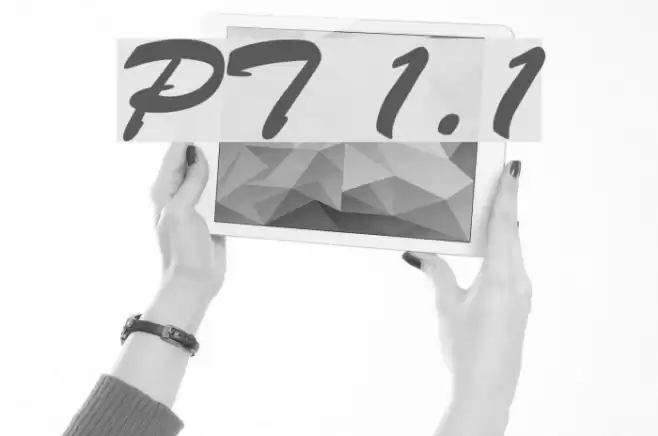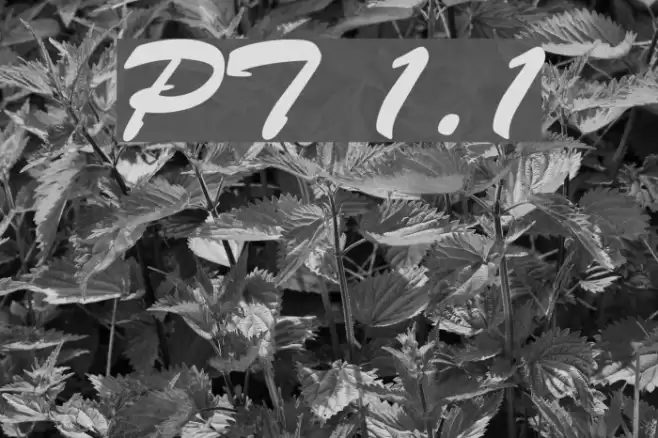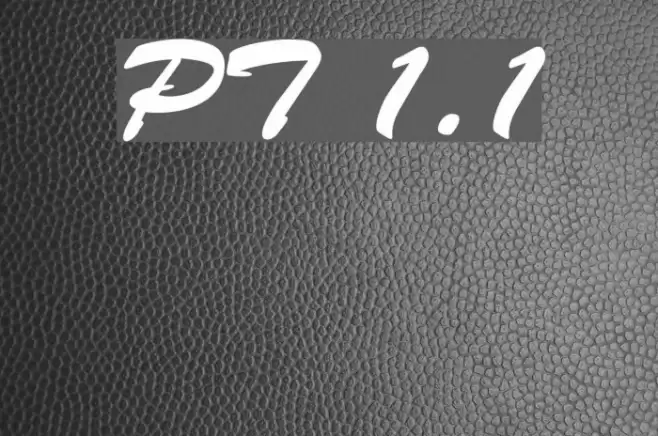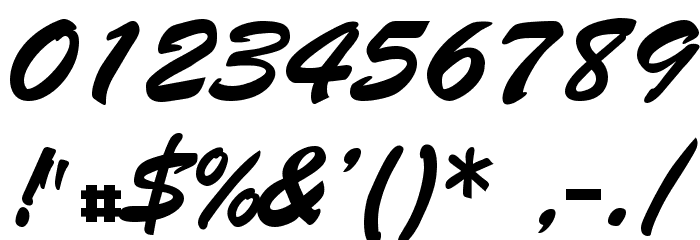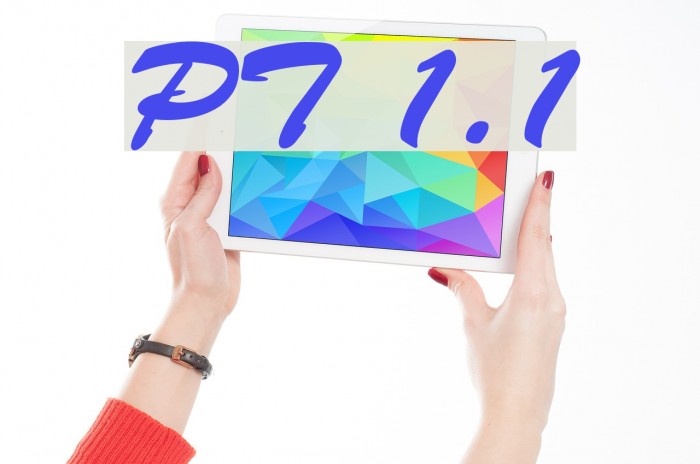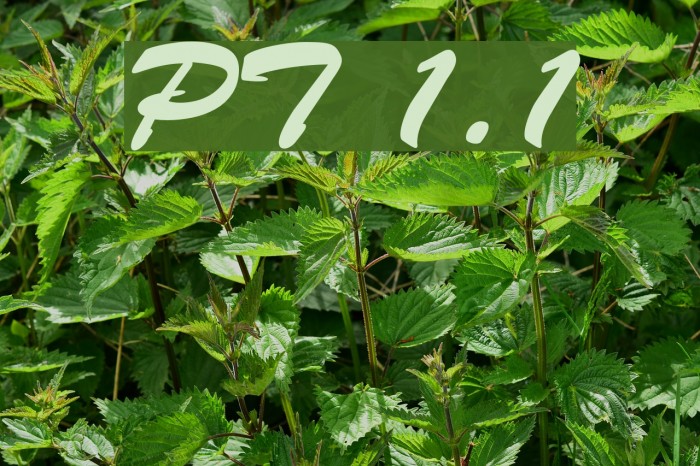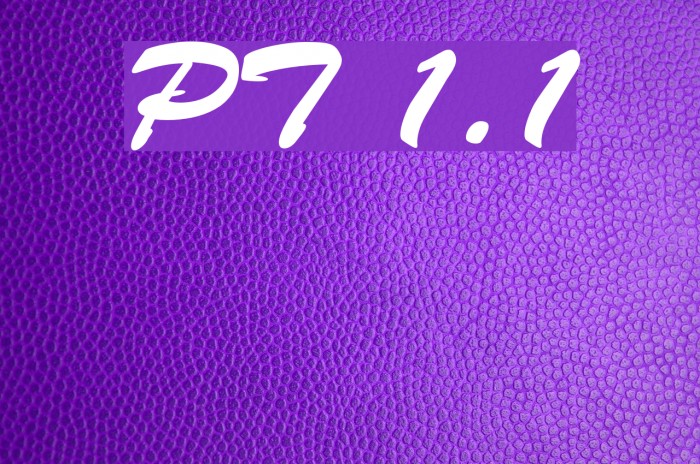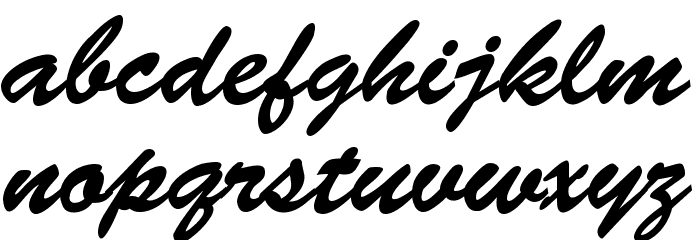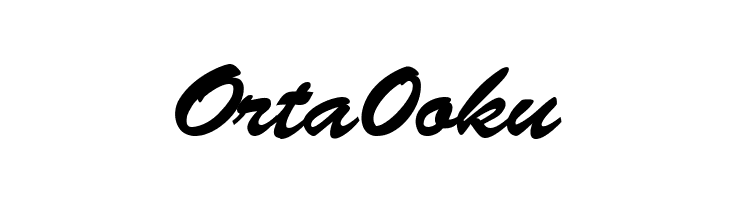
PhuongThao 1.1 Font
PhuongThao 1.1 Description
This font features a bold, cursive style with a dynamic and flowing appearance. The characters are interconnected, giving it a handwritten feel that is both elegant and expressive. The uppercase letters are slightly larger and more pronounced, while the lowercase letters maintain a consistent flow. The numbers and special characters are designed to match the overall cursive aesthetic, ensuring a cohesive look across all text. The strokes are thick and consistent, providing a strong visual impact. This font is ideal for projects that require a personal touch or a sense of sophistication.
A bold, cursive font with a dynamic and flowing handwritten style from Uncategorized fonts.
- Proposed Projects: Ideal for wedding invitations, greeting cards, personal branding, and elegant signage.
- Character Spacing: Tight
- Use Case: Logos, Headlines, Invitations